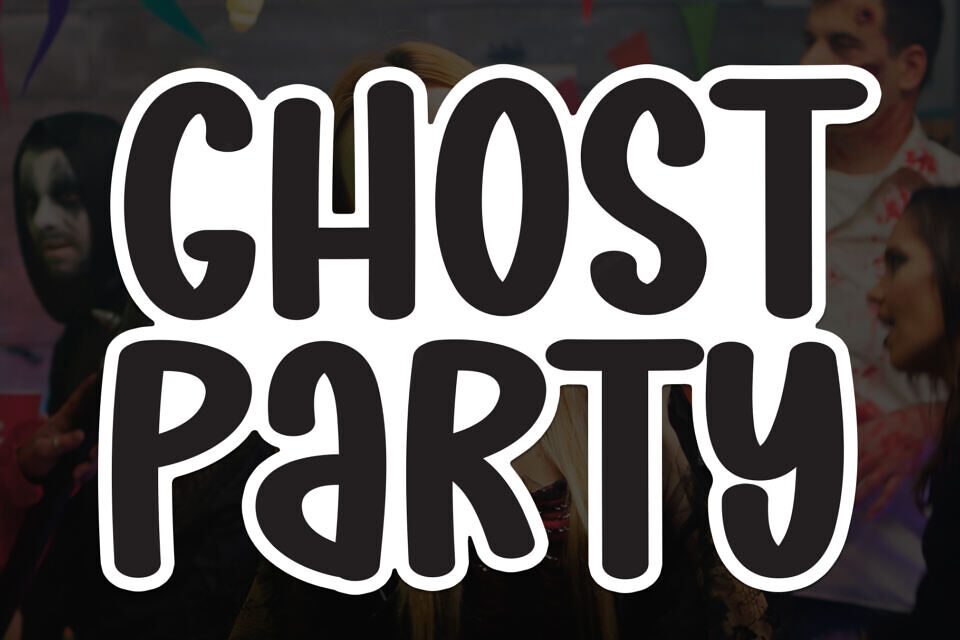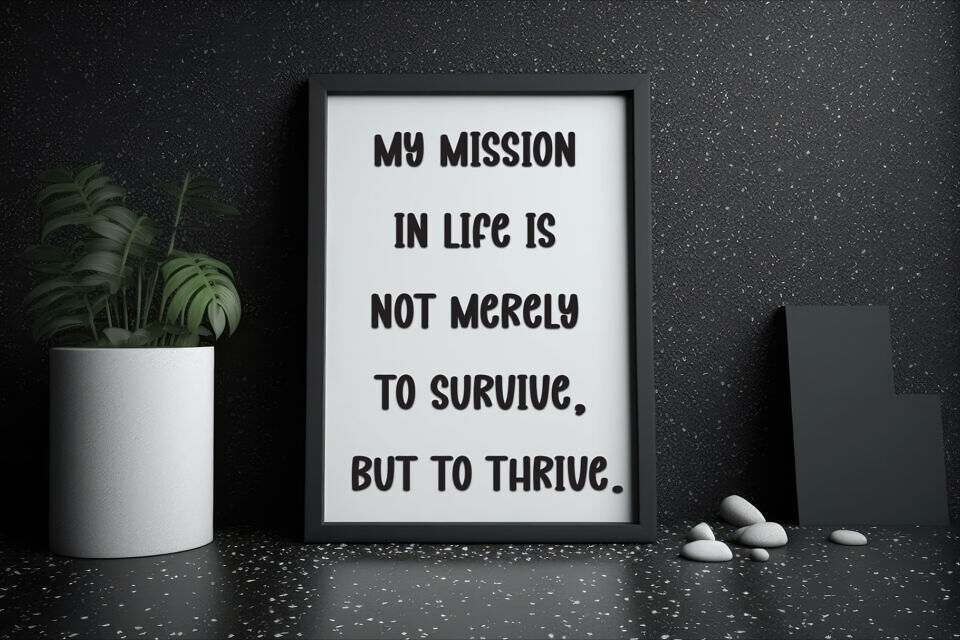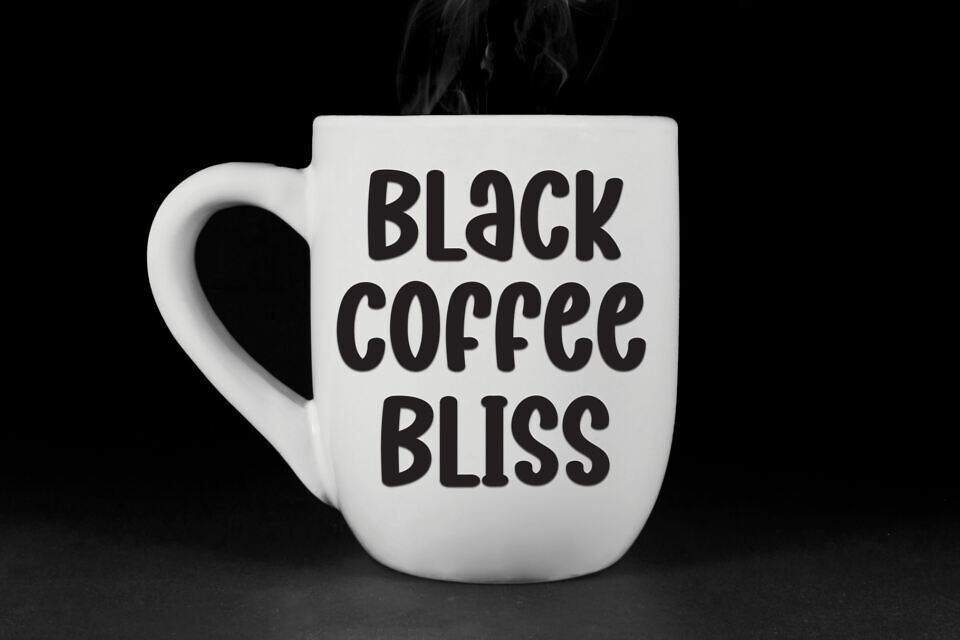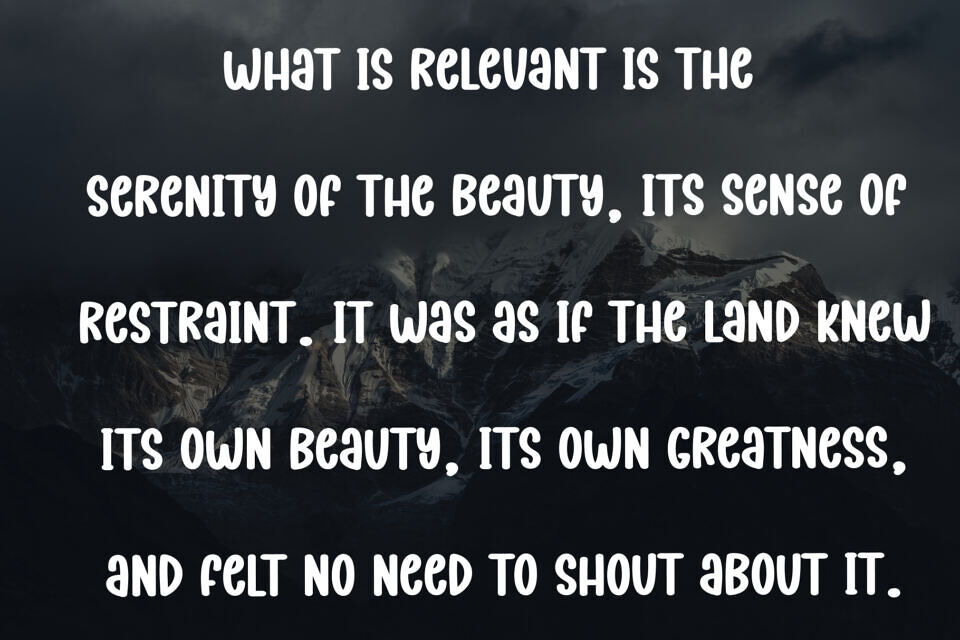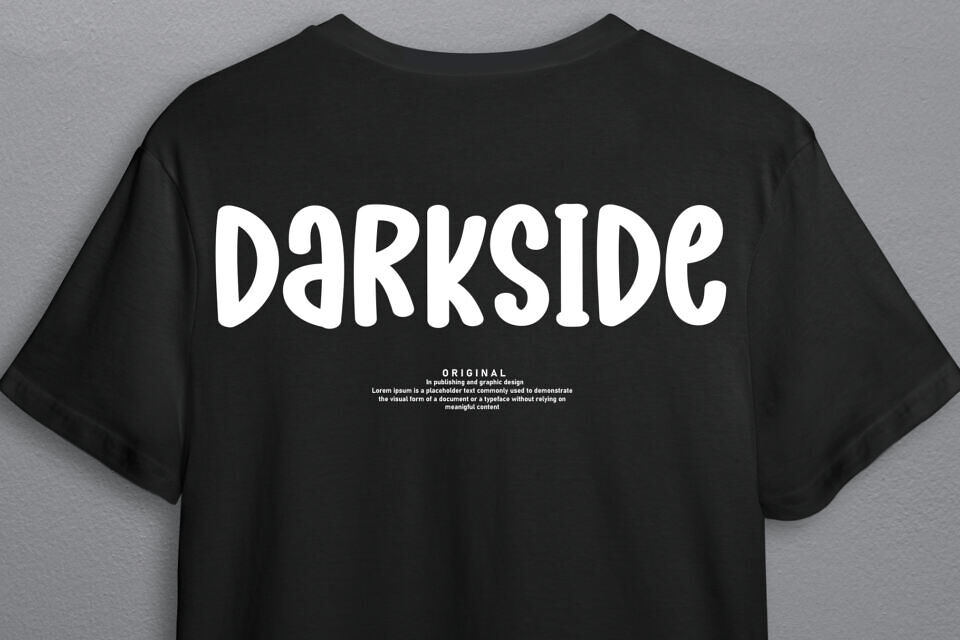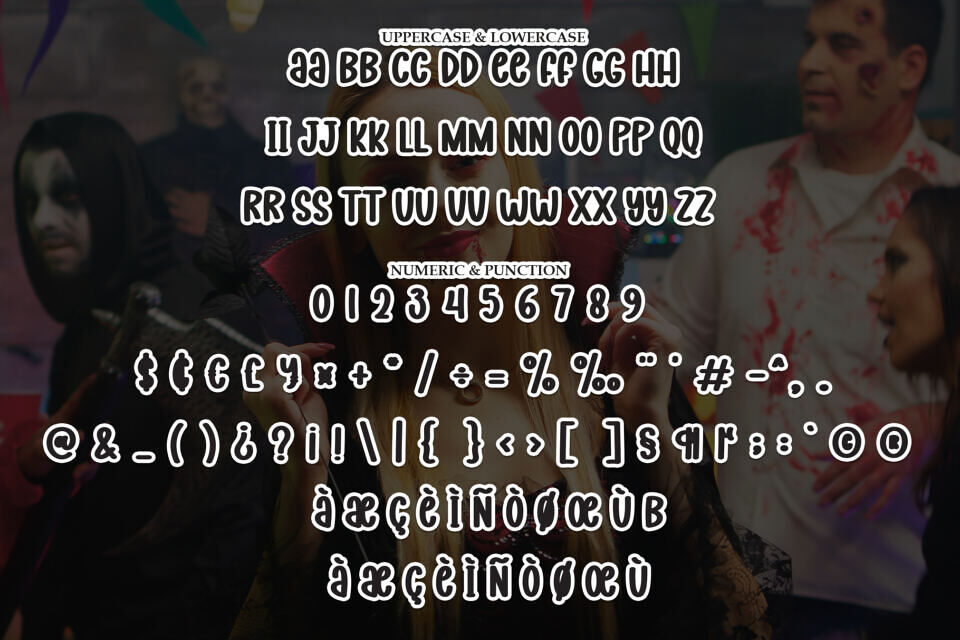
The Ghost Party font is a playful, bold typeface with a whimsical, hand-drawn appearance. Its thick, rounded letters and quirky design give it a fun, cartoonish style, making it ideal for projects that require a lighthearted, creative touch.
The font works well for headlines, posters, and any design that aims to capture attention with its unique, lively character. It’s especially effective for youthful, casual themes and gives off a joyful and energetic vibe.